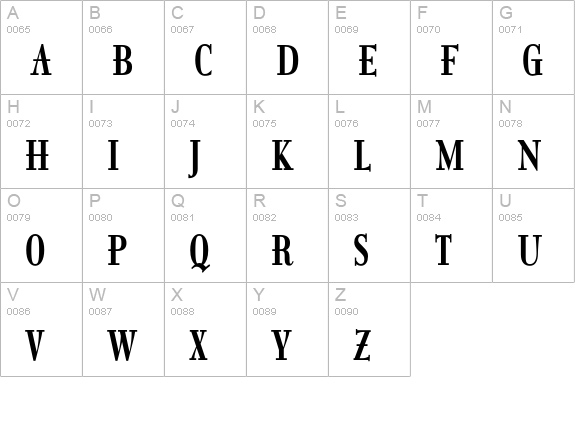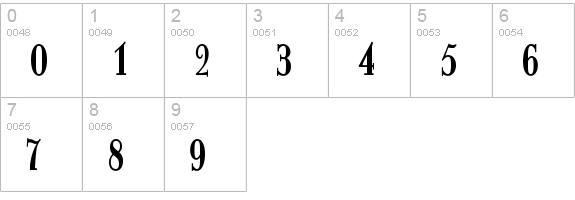
ItingOpti-BoldCondensed Font Details
ItingOpti-BoldCondensed font is a striking and modern typeface that exudes confidence and boldness. Its condensed design allows for maximum impact, making every letter stand out on any project. With its sleek and sharp edges, this font is perfect for headlines, titles, and any design that requires a strong and commanding presence. But what sets ItingOpti-BoldCondensed font apart from other fonts is that it is not only visually stunning, but also freely available to download. That's right, you can enjoy the power and elegance of this font without having to spend a penny. Thanks to FontsMarket.com, you can easily access and download ItingOpti-BoldCondensed font with just a few clicks. FontsMarket.com is a trusted platform that offers a wide range of high-quality fonts, and ItingOpti-BoldCondensed font is no exception. Whether you're a designer looking to create eye-catching visuals or a writer searching for a font that will make your words pop, ItingOpti-BoldCondensed font is a must-have in your font library. So don't wait any longer - head over to FontsMarket.com and get your hands on ItingOpti-BoldCondensed font today. With its sleek and modern design, and the added bonus of being freely available, this font is sure to elevate your designs and make a lasting impression.